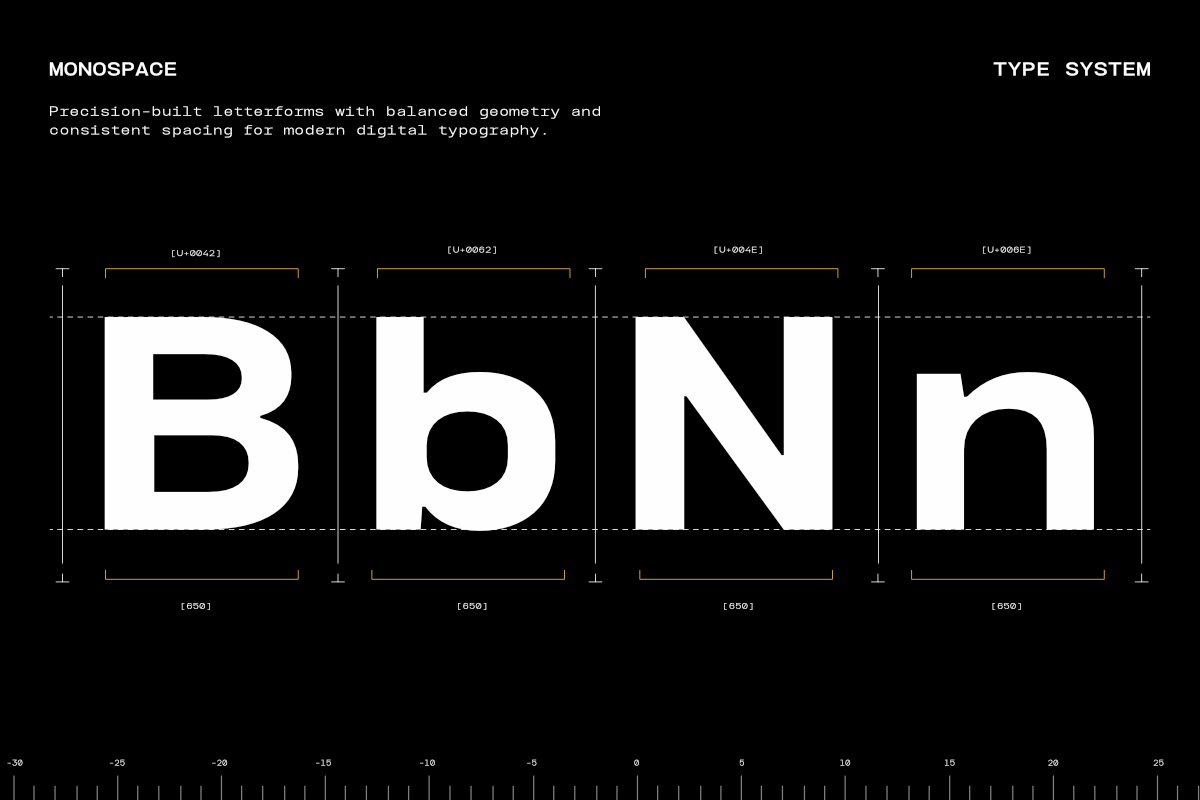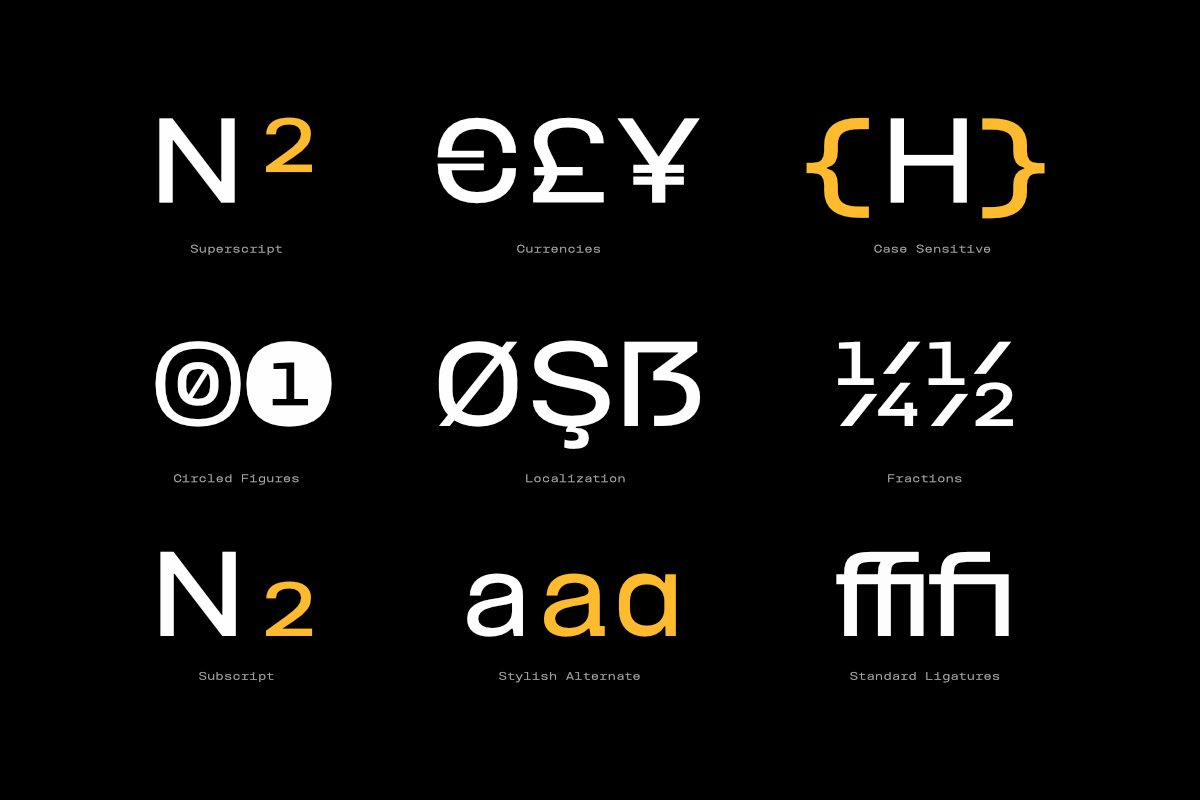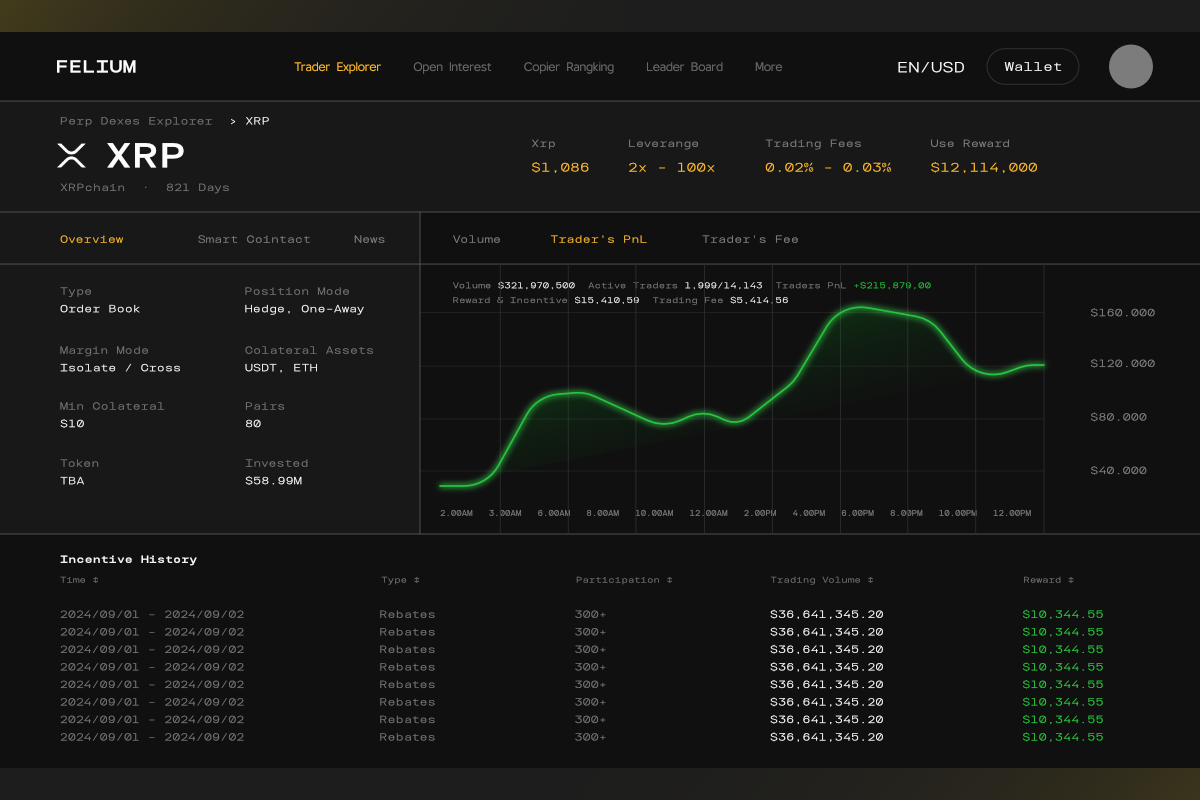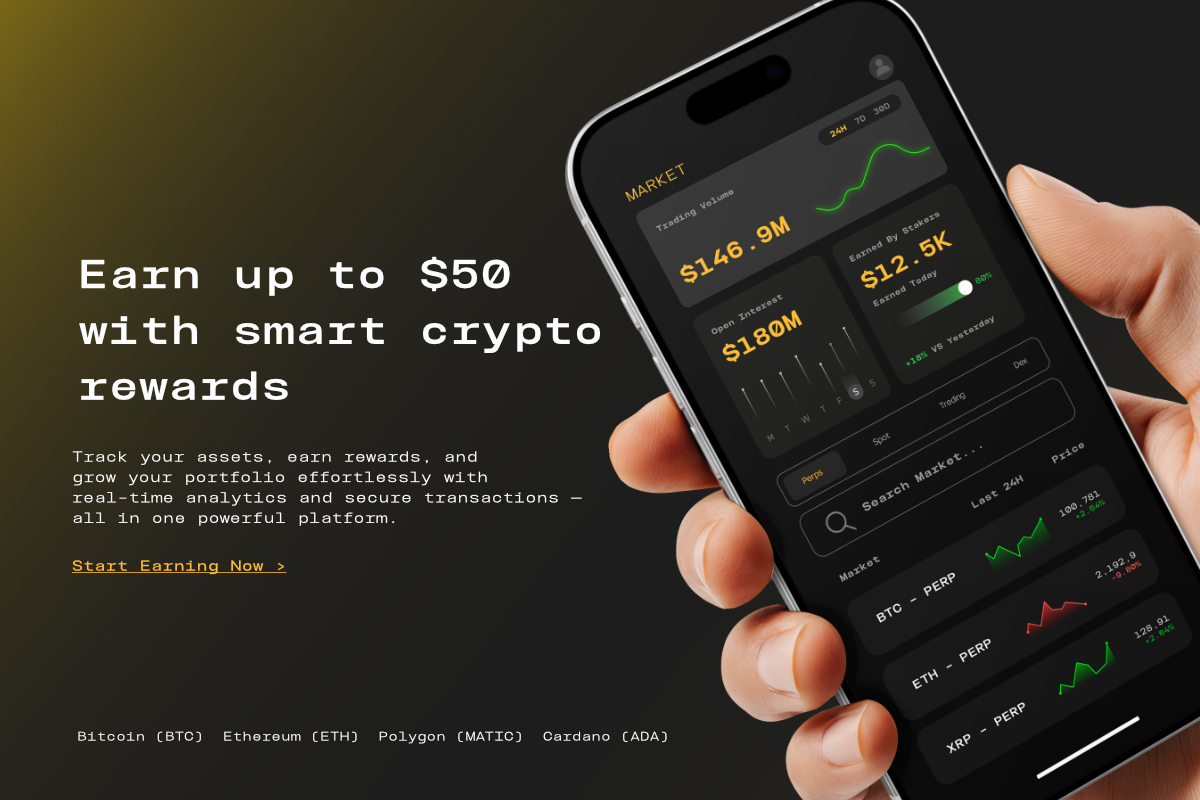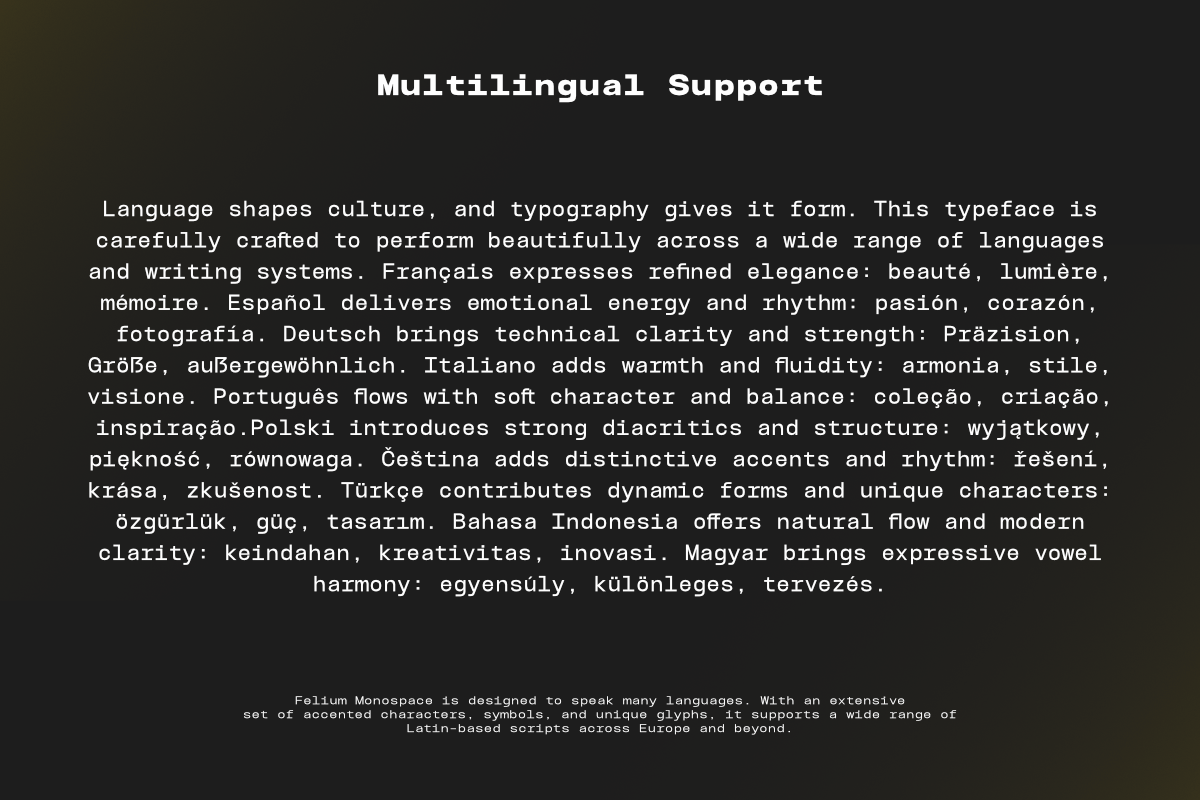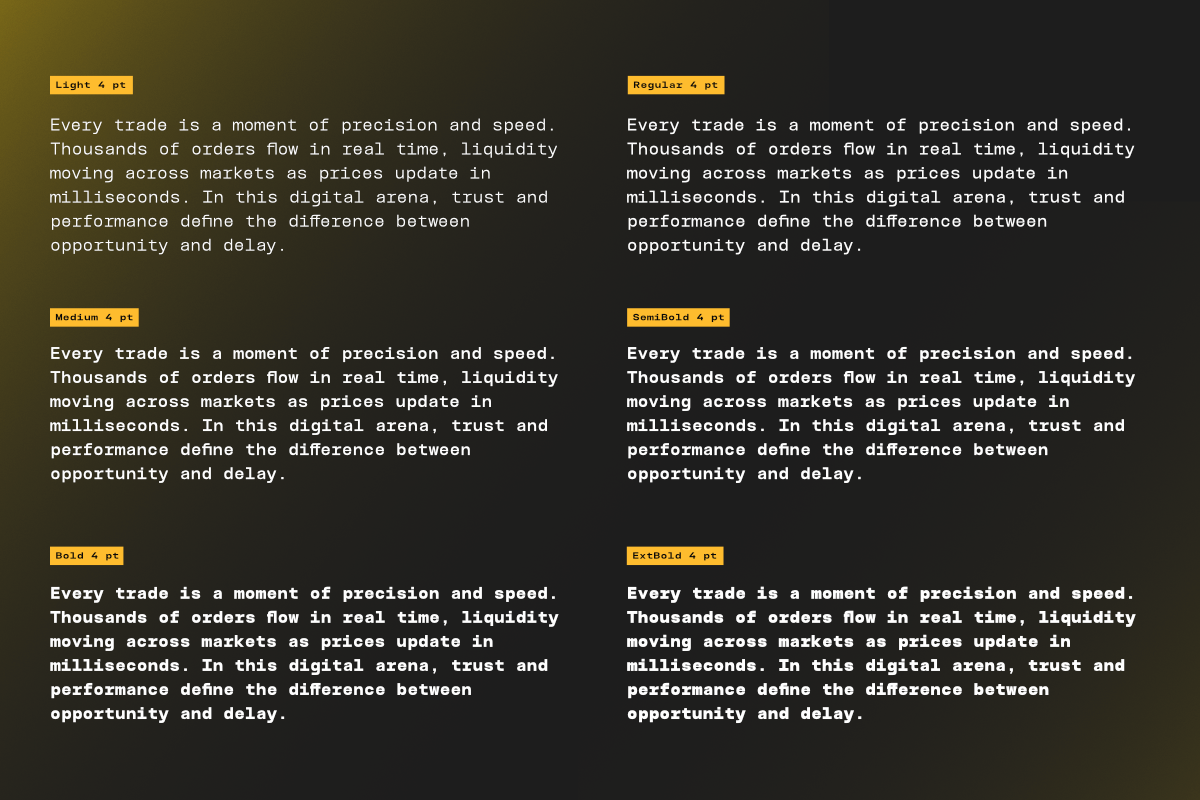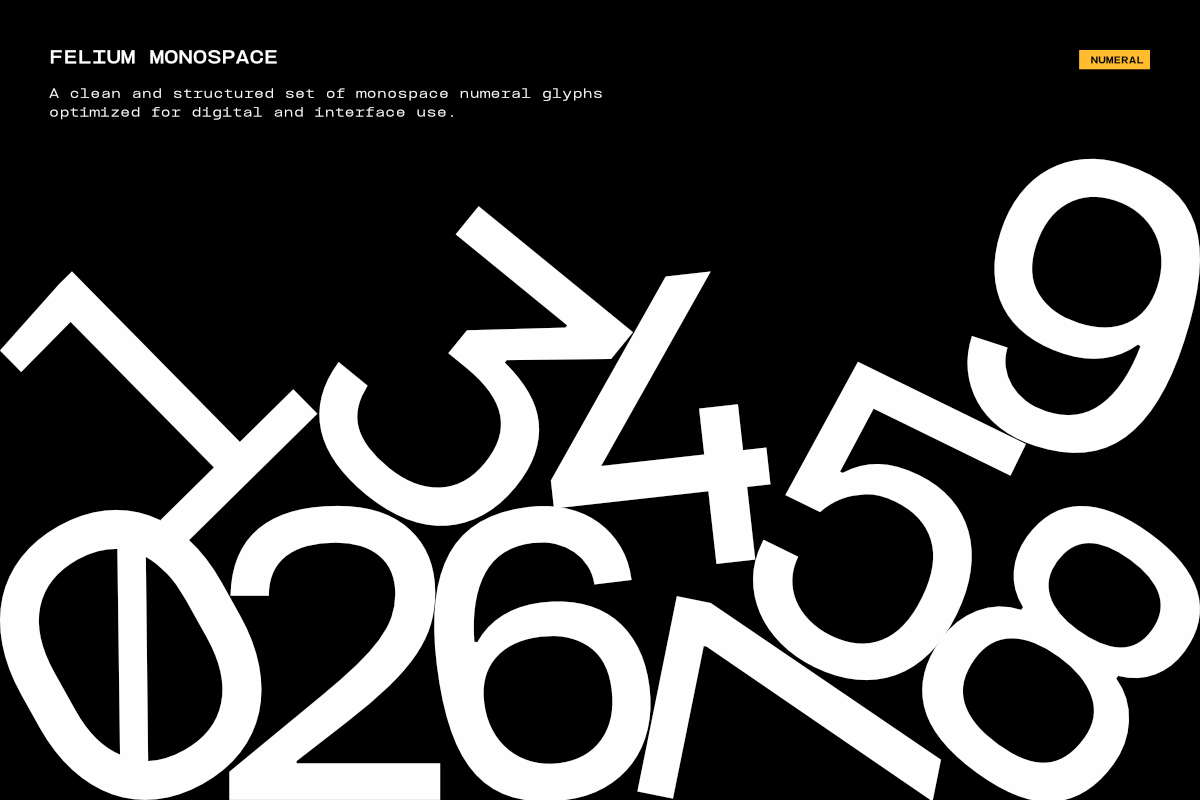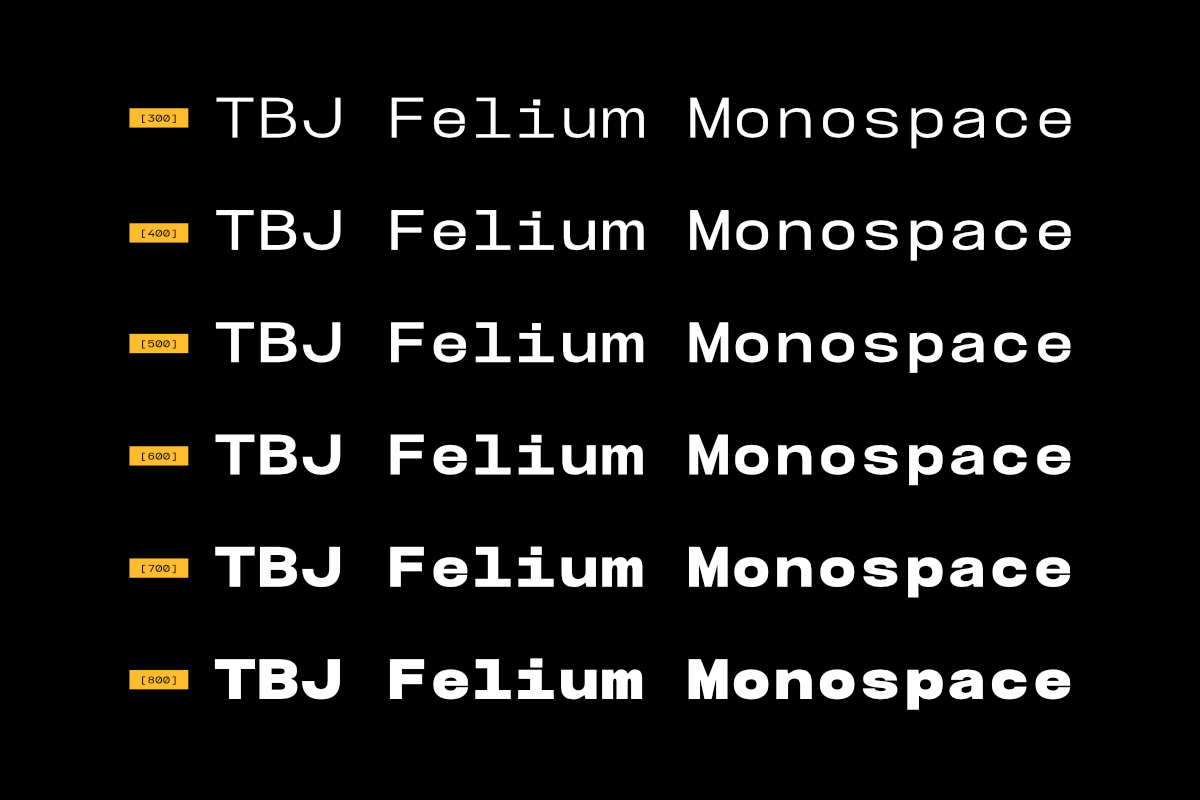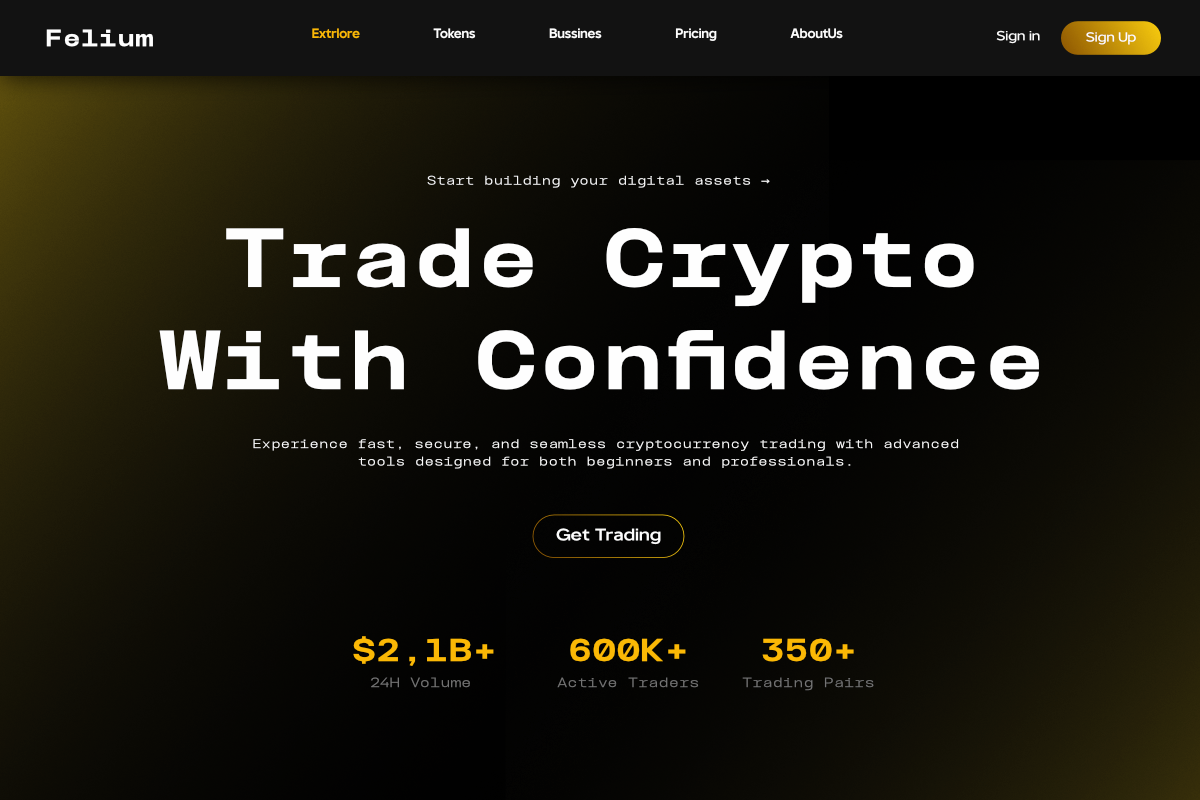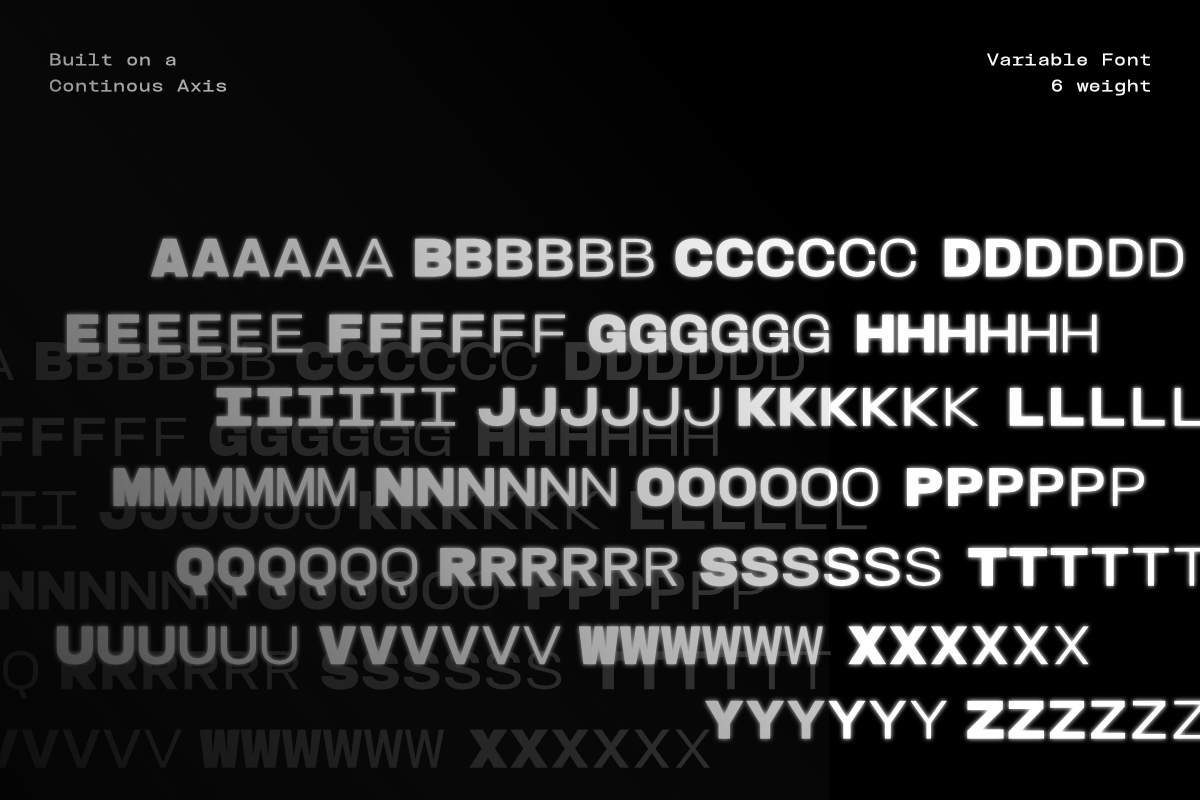
TBJ Felium Monospace Clean Modern
Felium Monospace is a contemporary monospaced sans serif typeface, meticulously engineered with precision, clarity, and functional balance. Built on a continuous axis and available in six calibrated weights, Felium is designed to perform seamlessly in modern digital environments while maintaining a clean, rational aesthetic.
Consistent character width across the entire glyph set ensures perfect alignment and exceptional readability, making Felium Monospace ideal for coding, UI systems, dashboards, fintech platforms, technical documentation, and data-driven layouts. Its structured geometry and controlled proportions create a stable visual rhythm, supporting dense information without sacrificing clarity.
While rooted in the logic of classic monospace design, Felium is refined for contemporary use combining technical accuracy with a modern, minimal expression. Extended multilingual Latin support, optimized numerals, and comprehensive OpenType features allow the typeface to transition effortlessly from functional interfaces to editorial and branding applications.
Felium Monospace represents utility elevated by thoughtful design precise, reliable, and built for systems that demand consistency and performance.